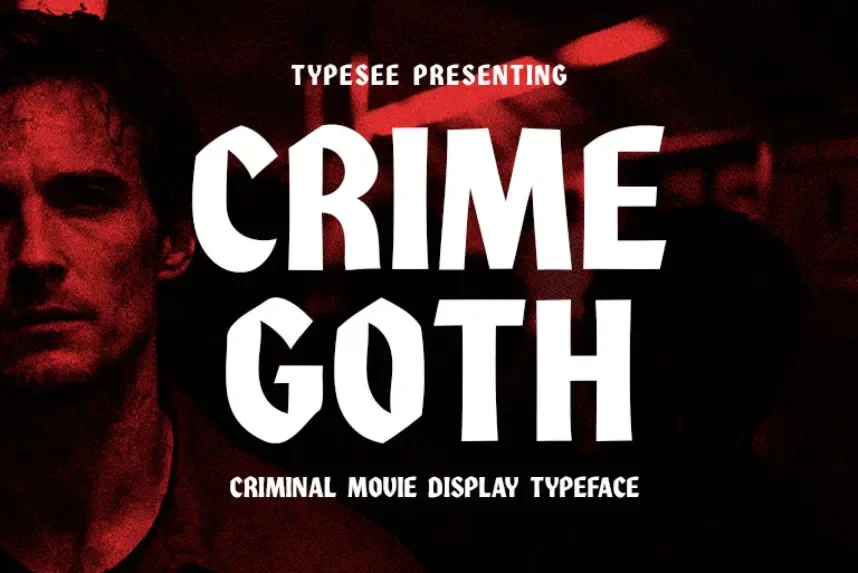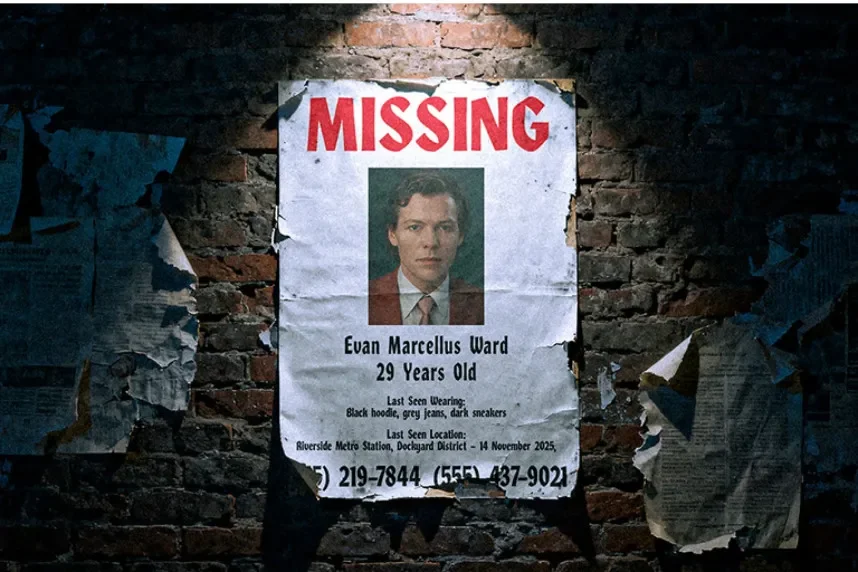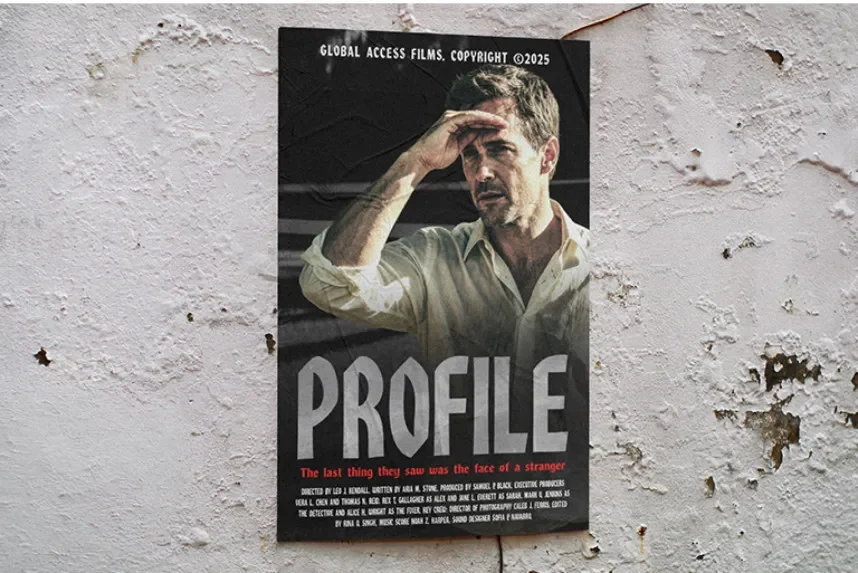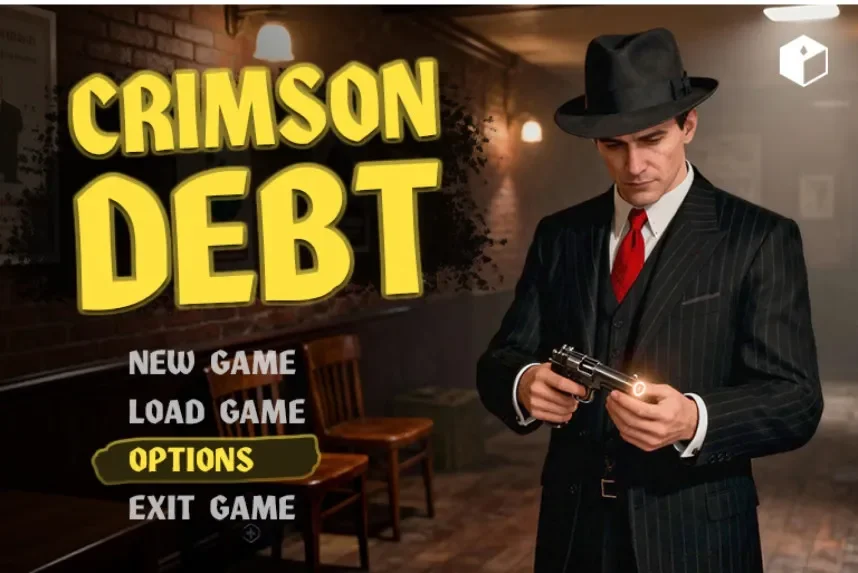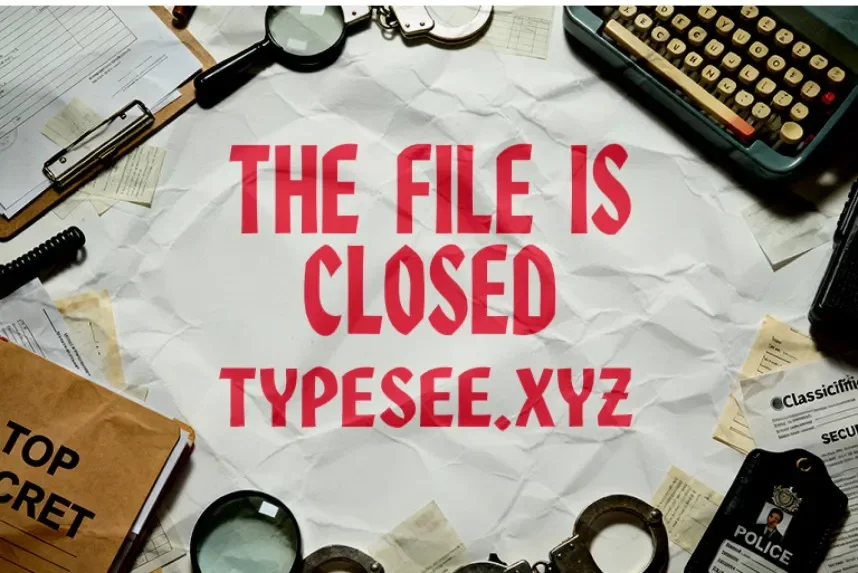
Crime Goth Font is a display typeface designed to address impact and visibility needs in dark-themed branding, posters, and logo design. Designers often require gothic-style lettering that stays readable at large sizes without excessive ornamentation.
Crime Goth features sharp angles, heavy strokes, and stylized gothic forms. The letterforms use tight spacing and strong vertical emphasis, which supports short text like titles and logos. This font is intended for display use rather than long paragraphs and usually includes uppercase letters, numerals, and basic punctuation.